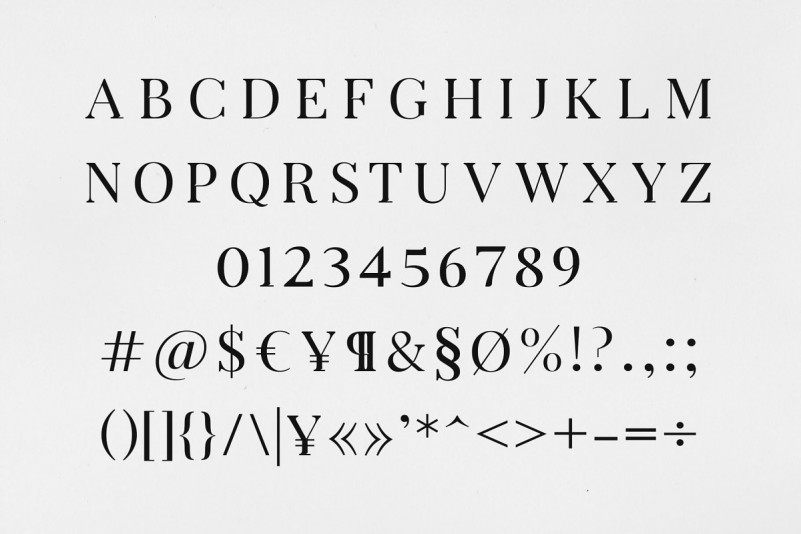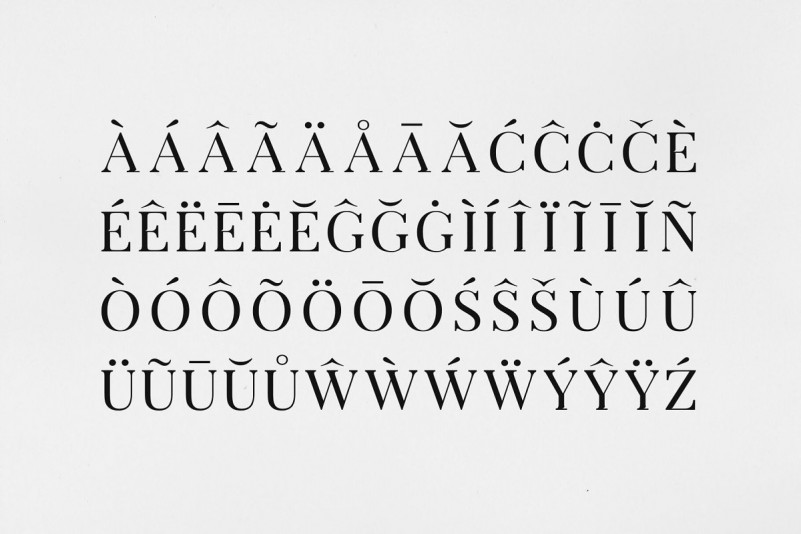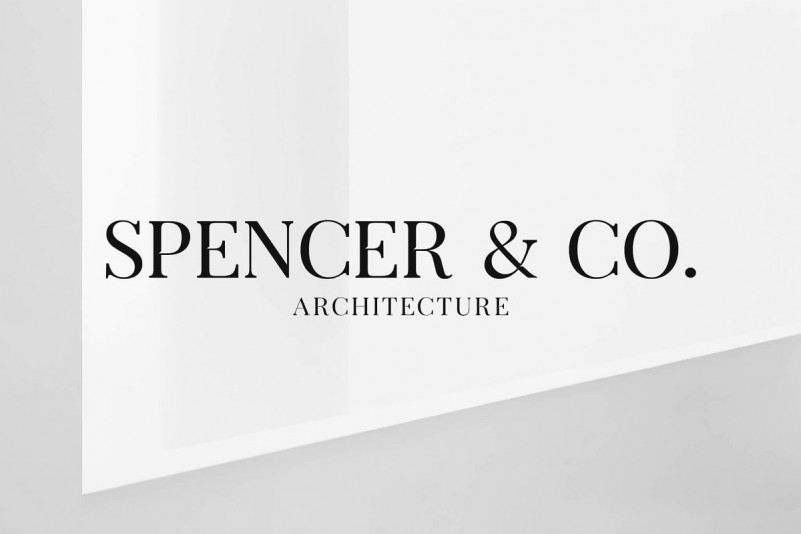
Arterio Serif Font Family
Hello guys. This is a well-balanced contemporary font with beautiful curved and ligatures. It is a display serif font with moderate contrast that perfect for branding projects! Introducing Arterio Font. It’s designed and shared by RC graphics. It’s an elegant and clean serif font. It’s a versatile font family designed for strong, classic branding. Arterio is perfect for any branding, logos, magazines, videos, weddings, quotes, print, product packaging, website, clothing designs and much more.